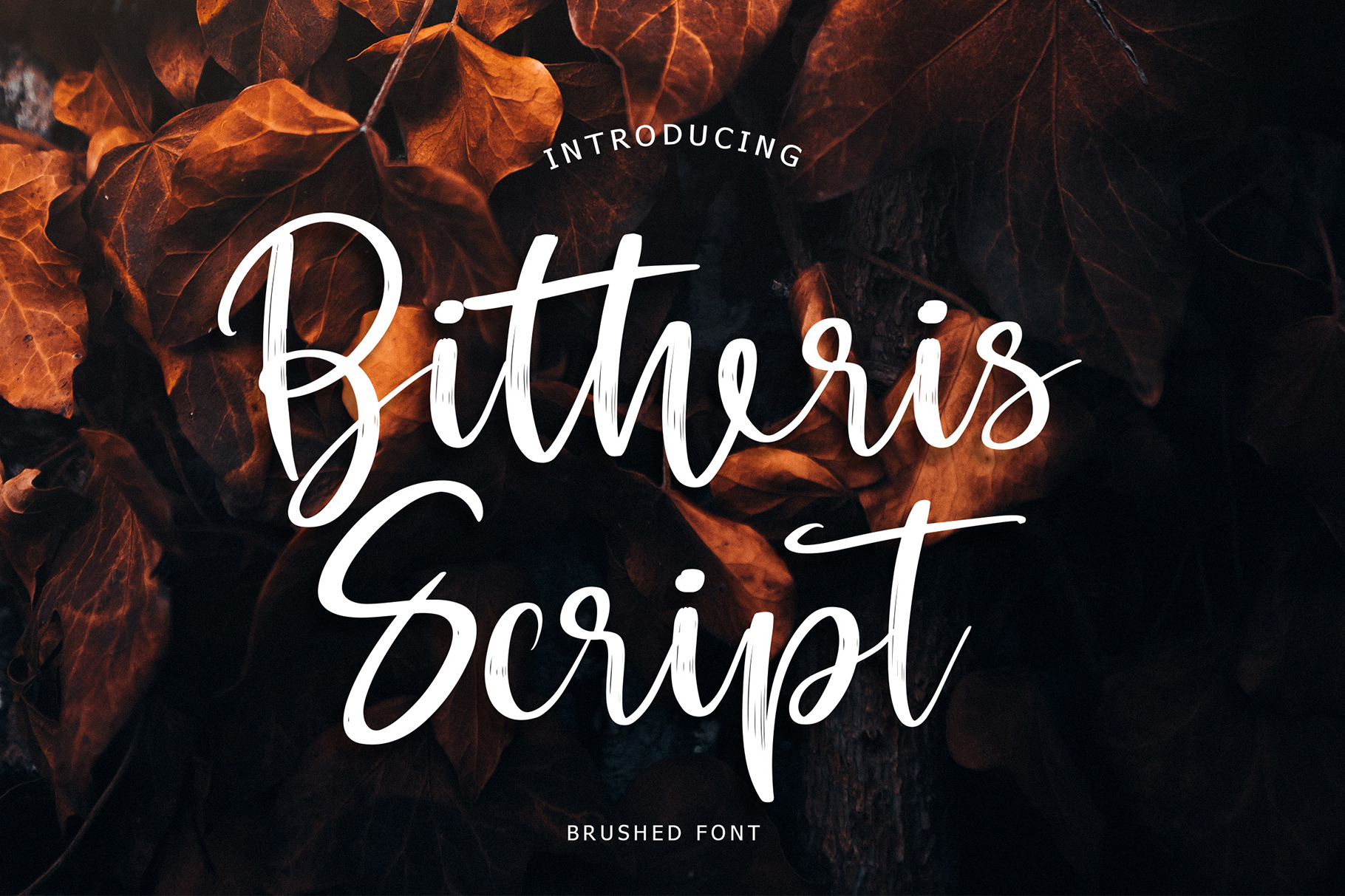
Bitheris Script Brush Font
Bitheris Script is a brush font can make your text appear elegant, luxurious, and modern!
Bitheris Script is perfect for branding projects, logo, wedding designs, social media posts, advertisements, product packaging, tshirt design, product designs, label, photography, watermark, invitation, stationery and any projects.